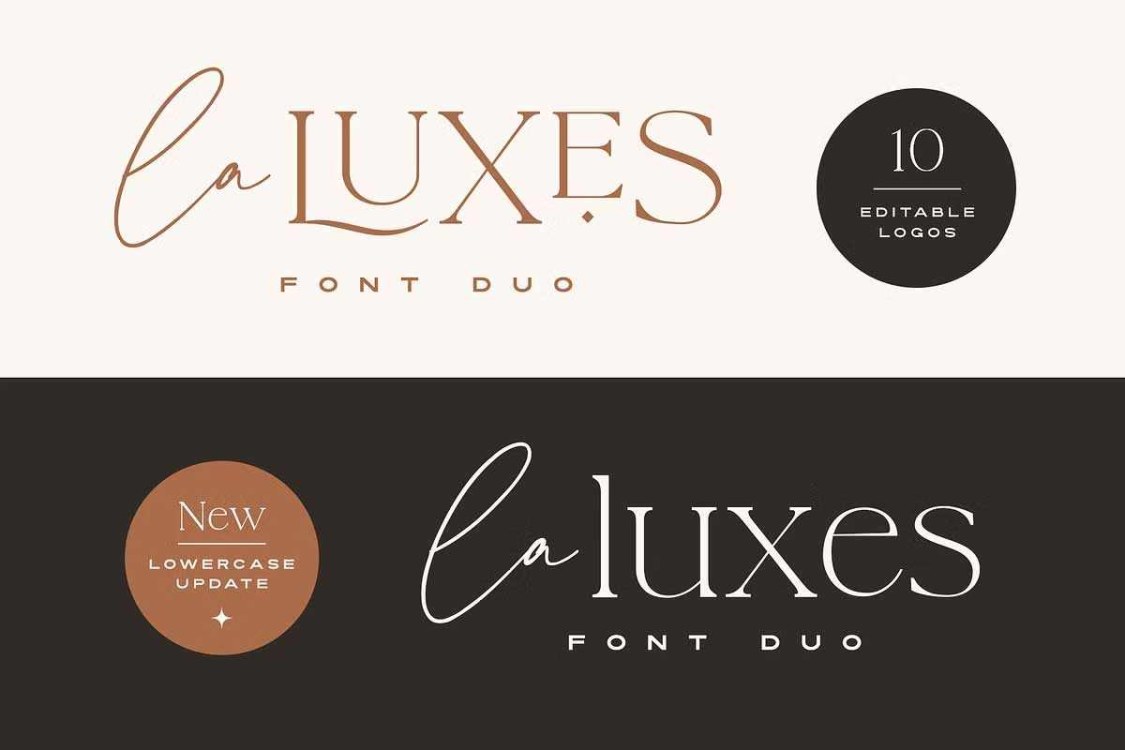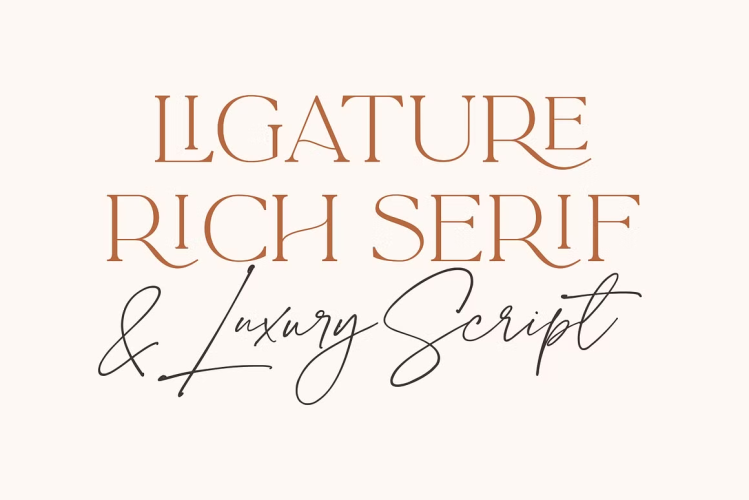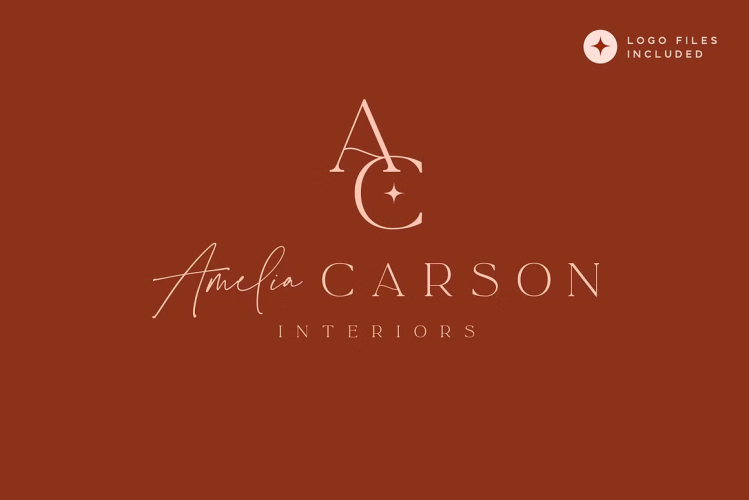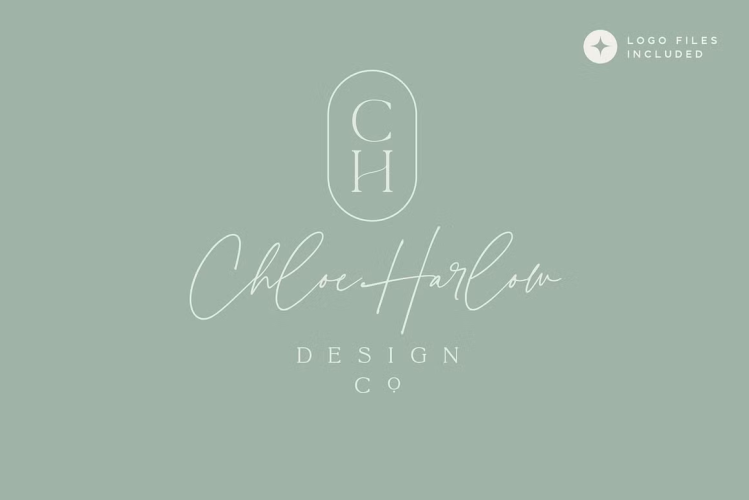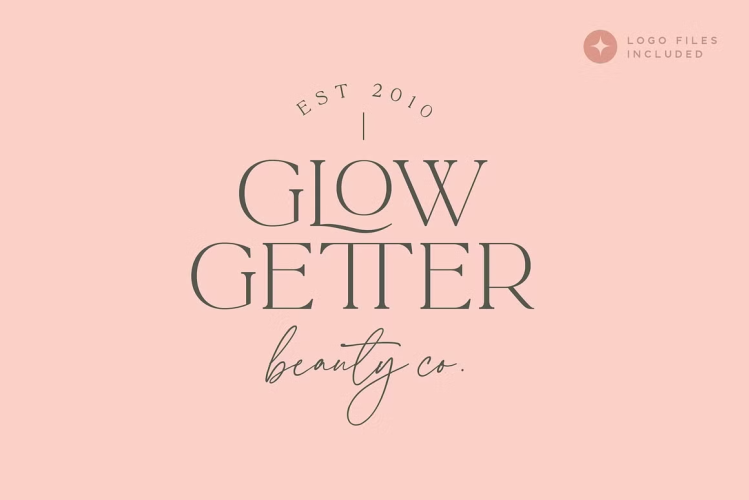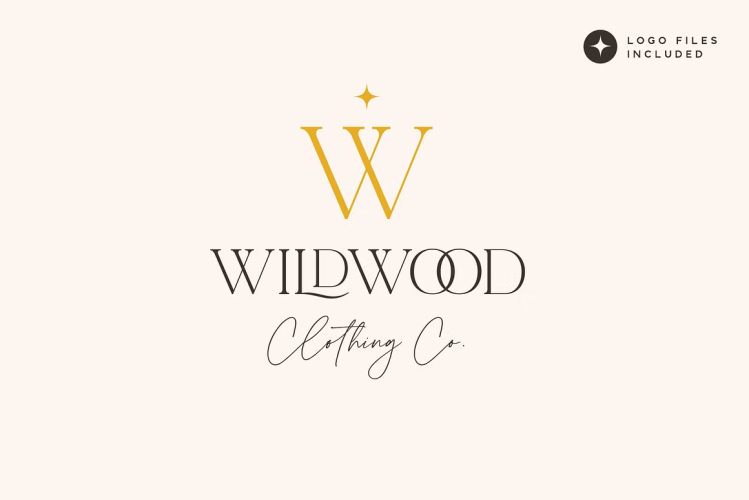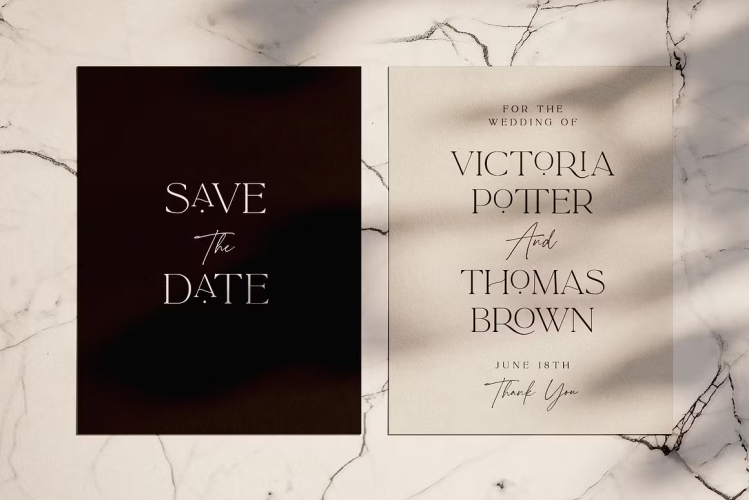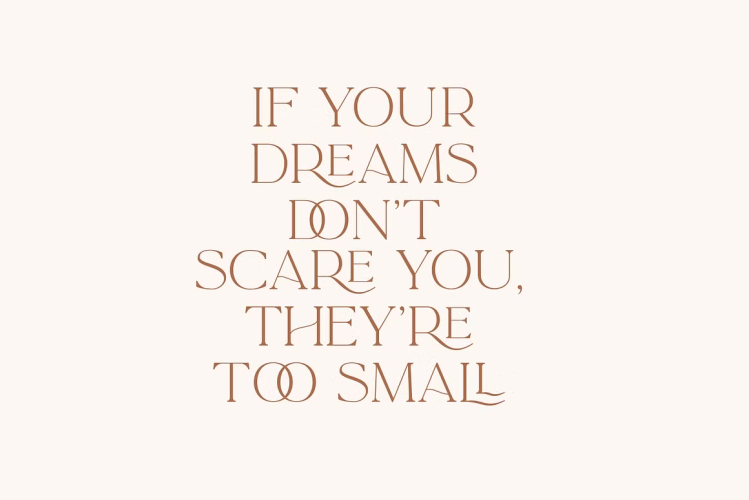
La Luxes Font
La Luxes font personifies the class and formality of the past that is your obvious pick for many design projects. This classic font duo elegantly assumes the role of combining a whimsical Script with a polished Serif, and as a result, a beautiful type partnership emerges that delights all senses.
The Script component of La Luxes font is the cornerstone of fluidity and elegance, with every stroke embraced and perfected, thus embodying luxury and magnificence. With its swirled and fancy letters, it is suitable for adding swankiness and grace to any work.
La Luxes Font is a Script And Handwritten font that brings a professional and versatile look to your projects. La Luxes font personifies the class and formality of the past that is your obvious pick for many design projects.